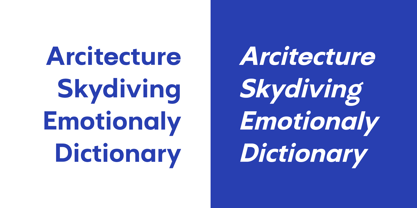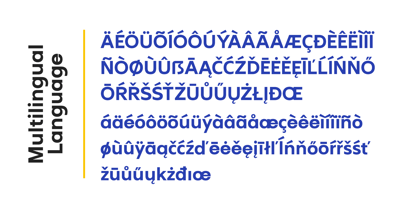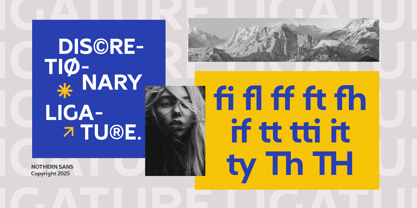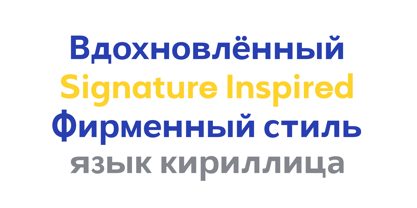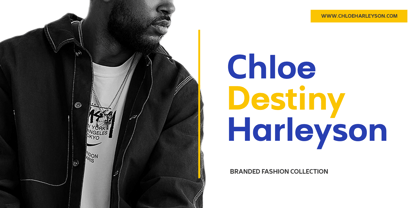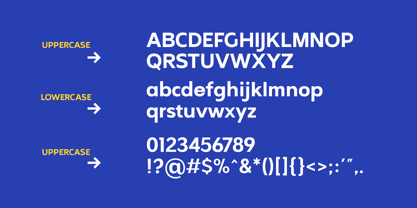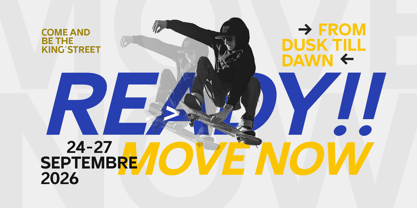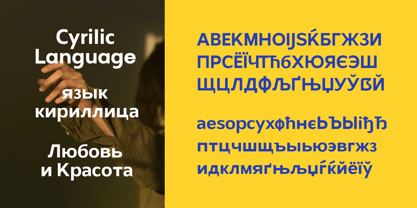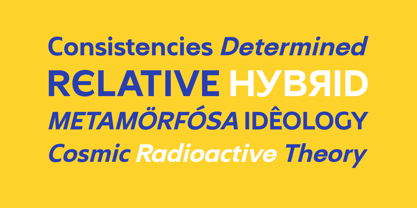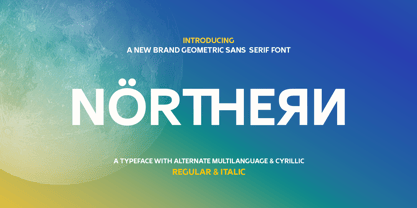
Nothern Sans
by Propertype
The Nothern Sans Font Family was designed by Nadia Auliana and published by Propertype. Nothern Sans contains 64 styles and family package options. More about this family
Northern Sans is a modern sans-serif font with a clean, geometric, and functional design. Created to be bold yet flexible, this font combines balanced letterforms with subtle details that give it a professional and contemporary feel.
-Letters, Numbers, Punctuation, Accent Ligatures, Swash, Alternatives
Designers: Nadia Auliana
Foundry: Propertype